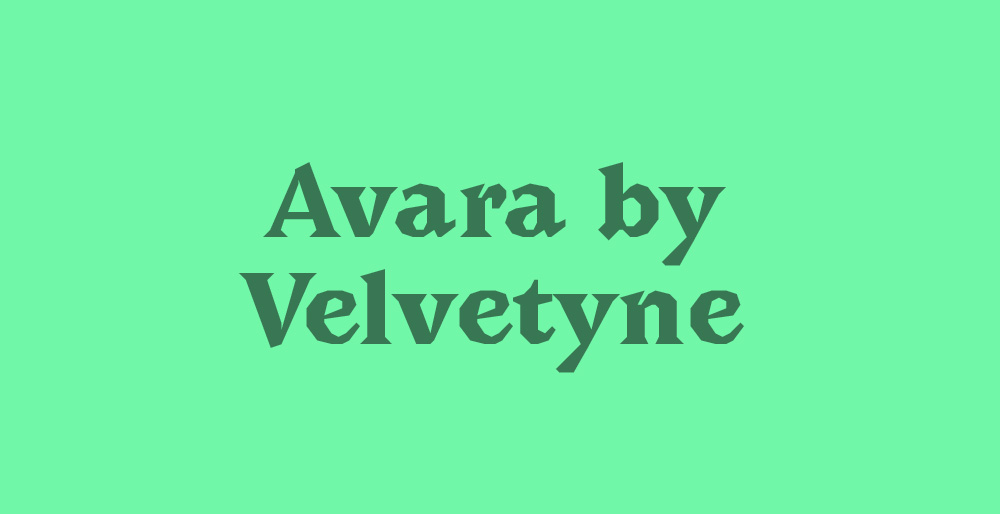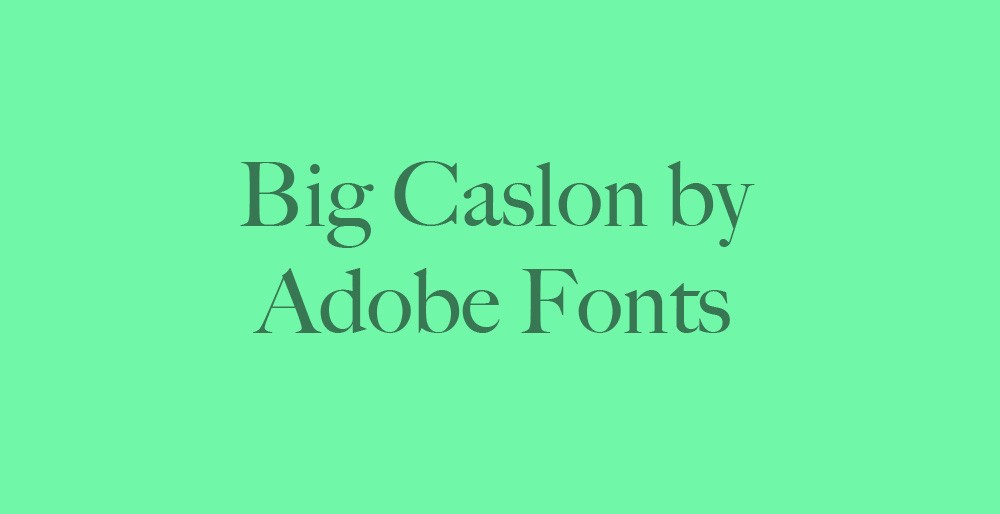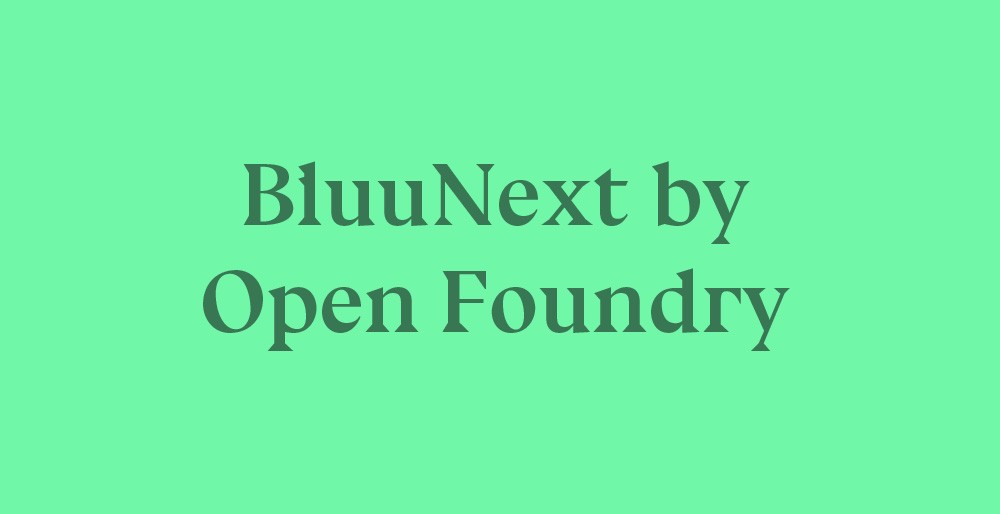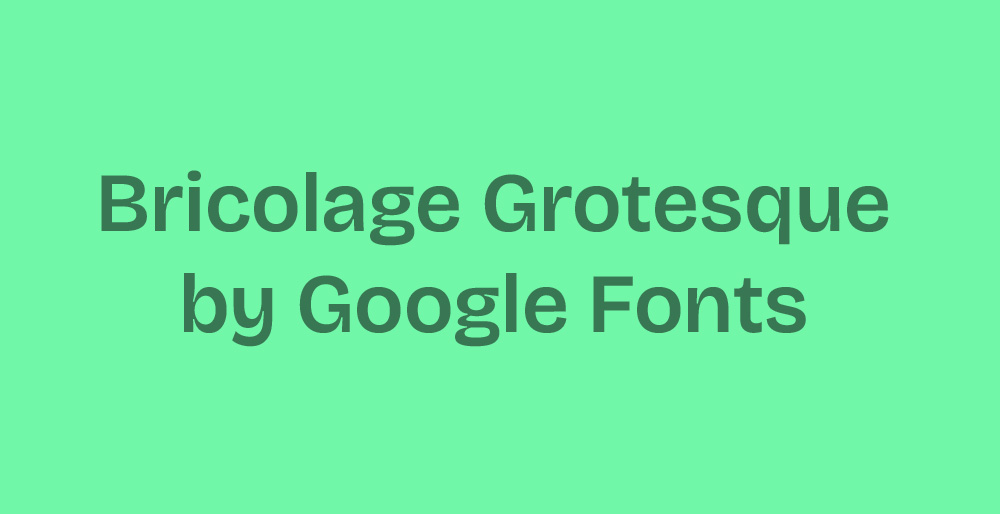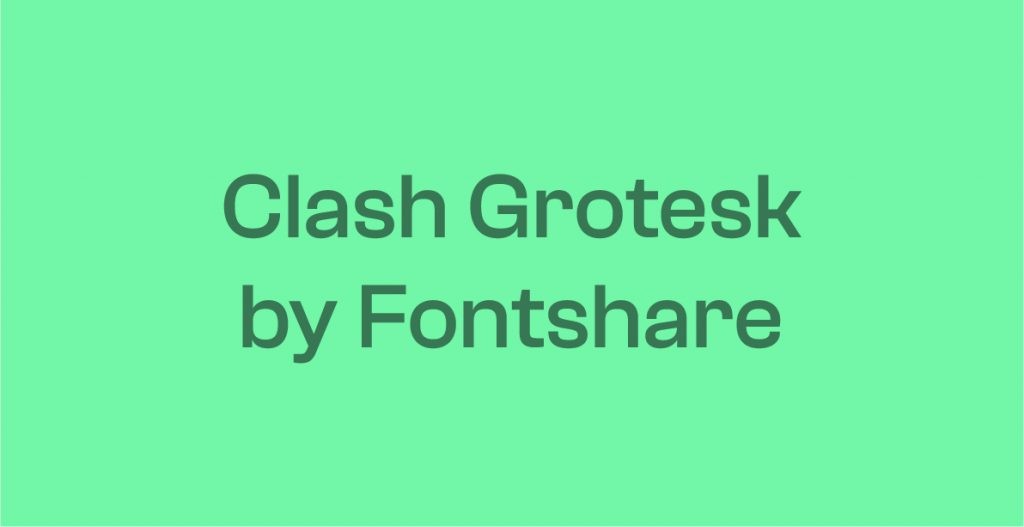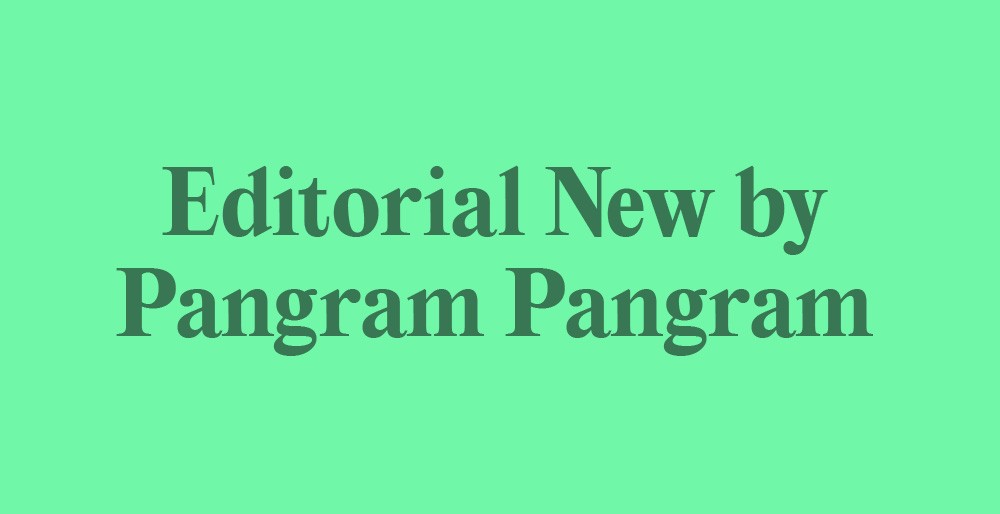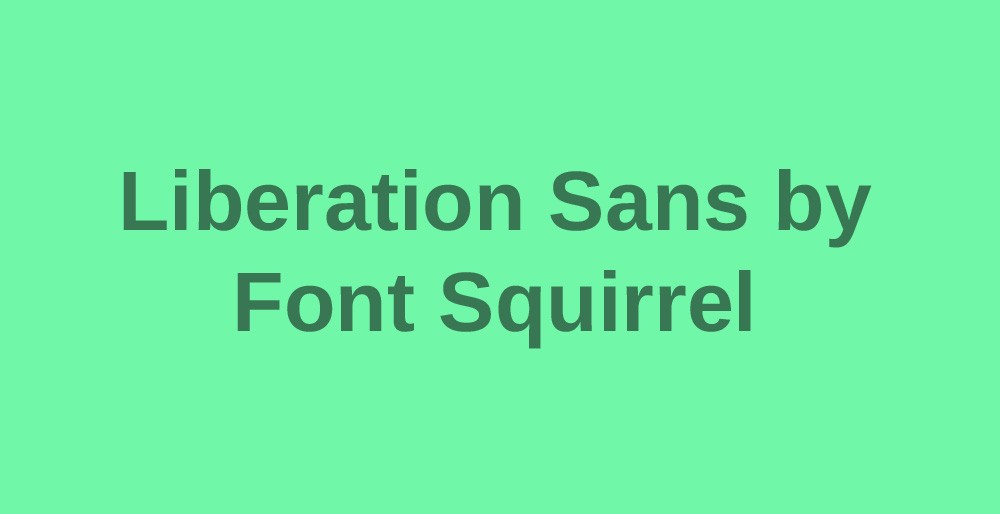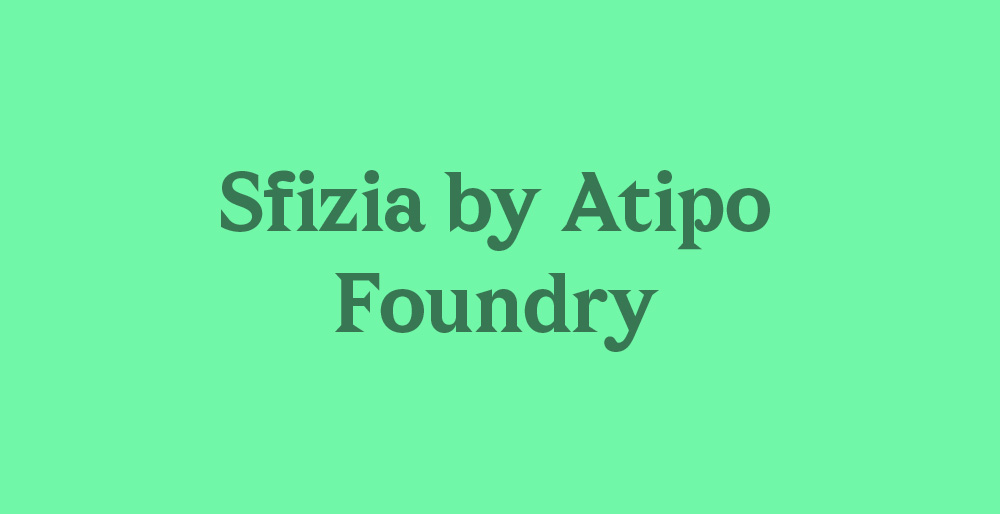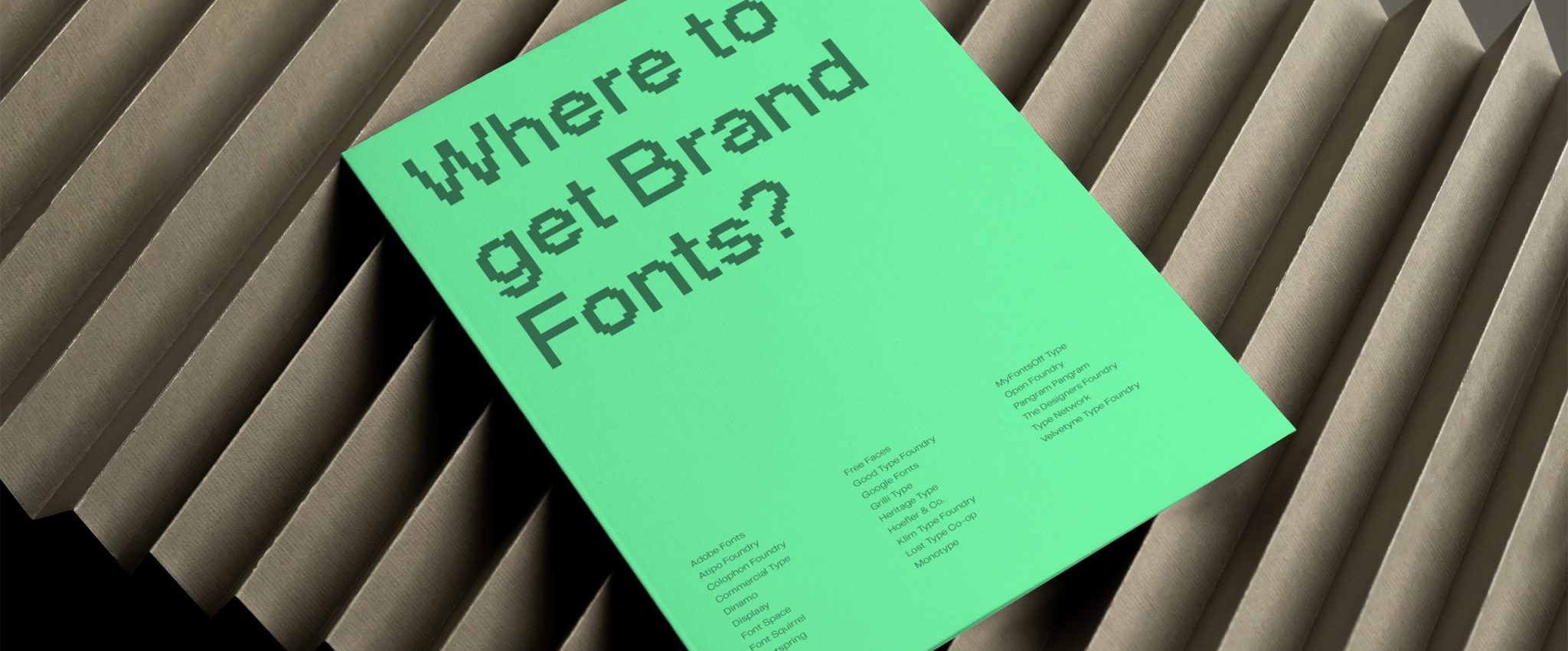
I see this all the time with small businesses. Most people don’t set out to pick the wrong fonts—they just use whatever came with their website template or whatever looked good in Canva that day. The trouble is, the brand ends up feeling disjoined and forgettable.
Before they read a single word, people subconsciously notice your typography. In a split second, your font choice tells them whether your business is traditional, reliable, innovative, or a bit quirky.
The right fonts help you build trust and establish your brand’s tone from the very start. When you get your fonts right and stick with them, your brand becomes instantly recognisable—which means people can identify it even without your logo. Your fonts become your signature distinctive brand assets.
In this article, I’ll share the 27 best websites for finding fonts. You’ll also find out what you need to know about font licensing in 2026 and discover how I, as a brand designer, select fonts for my clients. Feel free to jump straight to the section that interests you, or read the whole article.
- Fontshare
- Google Fonts
- Velvetyne
- Open Foundry
- Free Faces
- Font Space
- Font Squirrel
- Atipo (pay-what-you-want)
- MyFonts (free and paid options)
- Commercial Type
- Creative Market
- Dinamo, Displaay
- Fontspring
- Good Type Foundry
- Gradient Type
- Grilli Type
- Heritage Type
- Klim
- Lineto
- Off Type
- Pangram Pangram
- The Designers Foundry
- Type Network
- YouWorkForThem
- Adobe Fonts (included with Creative Cloud)
- Monotype
The 27 best websites to find fonts for your brand (A–Z)
Adobe Fonts comes with any Creative Cloud subscription and gives you a huge library to test during the design phase.
For better website performance, I recommend buying and self-hosting your final font directly from the foundry once you’ve made your choice.
Atipo offers contemporary typefaces with lots of personality. Their pay-what-you-want model is great if you’re on a tighter budget.
The selection isn’t huge, but if you want something distinctive without breaking the bank, it’s worth a look.
Commercial Type is one of the most respected foundries in the industry, and behind classics like Graphik and Neue Haas Grotesk.
Their clients include Bloomberg, Vogue, and the Financial Times, which speaks volumes about their standards.
Creative Market is a marketplace for unique fonts. Because it’s an open platform, the quality can vary, so you’ll want to choose carefully. That said, it’s a great place to support indie creators while finding a font with a distinct personality.
Just pay close attention to their licensing structure. They split fonts into Desktop, E-pub, App, and Web, which can get expensive if your brand is present across different platforms.
Dinamo is a premium Swiss type studio. Their fonts have a lot of character and stand out from the crowd. They’re best for brands with a serious typography budget, though.
This independent foundry offers beautiful, contemporary typefaces you won’t see everywhere.
Their fonts have been used by brands like Nike, YouTube, and Facebook. You can buy retail fonts or commission a custom font.
FontSpace lists over 130,000 free fonts, with about 18,000 cleared for commercial use. It’s a long, uncurated list, so you’ll need a sharp eye to find something that really fits your brand.
Still, it’s worth a browse if you have the patience. Just make sure to check the licence before you download anything.
Font Squirrel is similar to FontSpace, with a big archive of free fonts. The difference is that Font Squirrel checks all its fonts for commercial use, so you don’t have to worry about licensing.
Their Font Identifier tool is genuinely useful too: upload an image of any type, and it finds similar fonts for you.
Fontshare is one of my favourite websites for finding free fonts.
Run by the Indian Type Foundry, it offers a carefully curated selection of high-quality fonts like General Sans, Clash Display, and Supreme—all in multiple weights, with pairing suggestions built in.
Fontspring partners with major foundries and offers over 69,000 fonts. Their licensing is refreshingly simple: pay once, use the font for life, and no subscriptions are needed.
Free Faces is a curated gallery of fonts under various free licences. It’s a good starting point if you’re feeling overwhelmed by choice. Just remember to check each licence before using any font commercially.
Good Type Foundry offers high-quality original typefaces with a playful, modern edge. If you want your brand to show personality without shouting, this is a great place to look.
Google Fonts is the world’s most popular open-source font library. The quality is surprisingly good for a free resource. The downside is that almost everyone uses them. So if standing out is important to you, they can feel a bit too safe and generic.